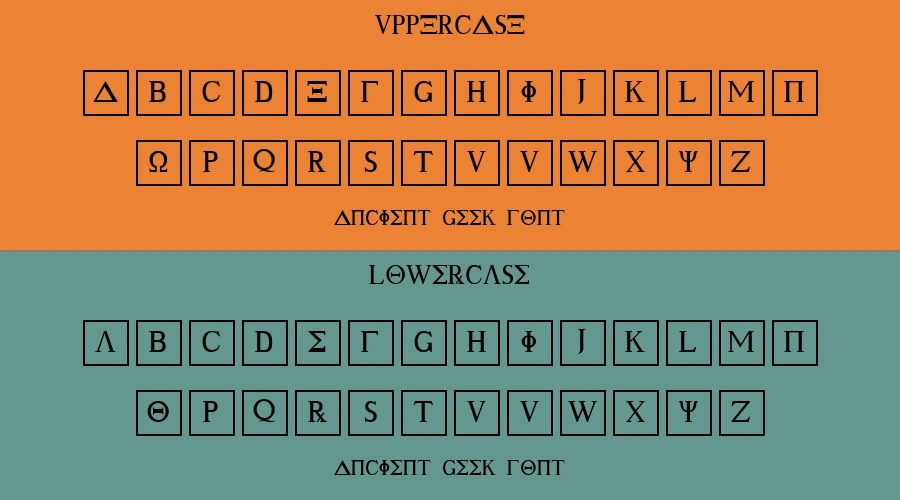
About Ancient Geek Font
Ancient Geek Font stands out for its distinctive combination of ornamental caps and professional grade. Ideal for legal documents, it provides the impact and functional utility that professional projects demand. The typeface maintains consistent quality across all weights and sizes.
Key features include refined hairline details and practical discretionary ligatures, enhancing typographic expression. In white papers applications, Ancient Geek Font demonstrates exceptional distance readability. The crossbar height and character contribute to its distinctive character and professional appeal.
Ancient Geek Font |